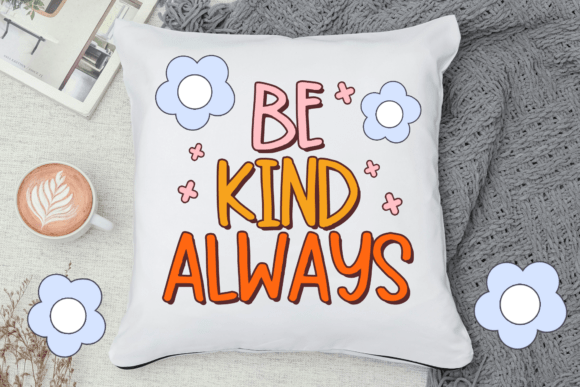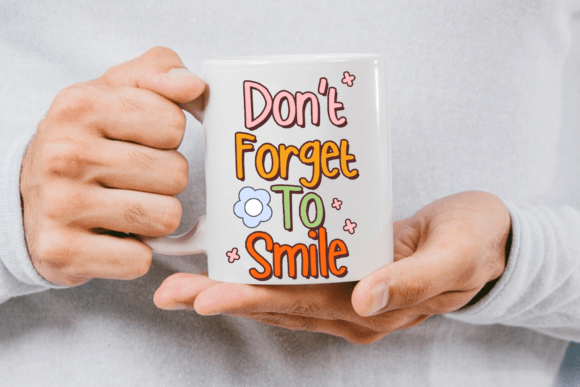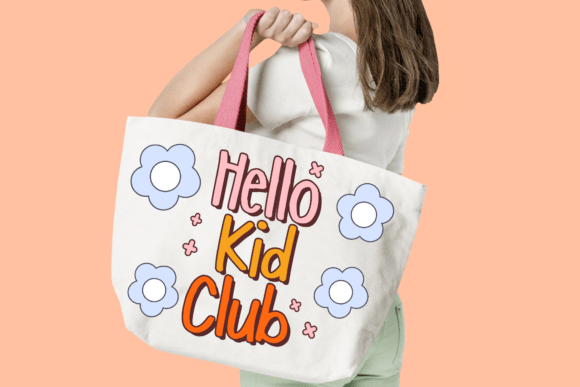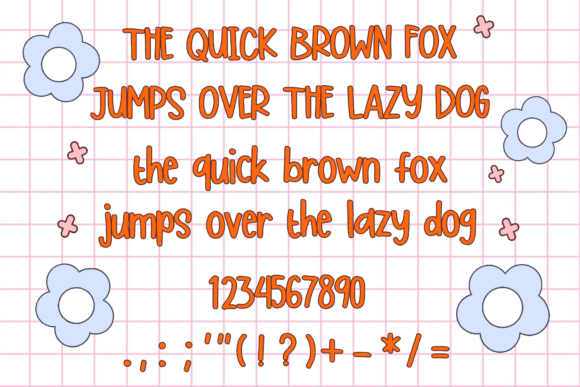
Hello Comic Font: Elevate Your Designs with a Playful and Versatile Typeface
Are you looking for a font that can add a super cool touch to your designs? Look no further than Hello Comic Font! This playful and versatile typeface is perfect for a wide range of design projects, from stickers and t-shirt designs to logo creations, magazine covers, and more. In this article, we’ll dive into the features and benefits of Hello Comic Font and explore how it can elevate your designs to the highest level.
What is Hello Comic Font?
Hello Comic Font is a fun and playful typeface designed to bring a touch of comic book flair to your designs. Its bold and expressive letters are perfect for creating eye-catching graphics, logos, and text-based designs. The font is highly versatile, making it suitable for a wide range of applications, from digital designs to print materials.
Key Features of Hello Comic Font
- Playful and Fun: Hello Comic Font is designed to add a playful and fun touch to your designs. Its bold and expressive letters are perfect for creating eye-catching graphics and logos.
- Versatile: This font is highly versatile and can be used for a wide range of design projects, from stickers and t-shirt designs to logo creations and magazine covers.
- High-Quality: The font is designed to high-quality standards, ensuring that your designs look professional and polished.
Design Ideas with Hello Comic Font
Hello Comic Font is perfect for a wide range of design projects. Here are some ideas to get you started:
- Stickers: Create fun and eye-catching stickers for kids or adults using Hello Comic Font.
- T-Shirt Designs: Design amazing t-shirt graphics using this font, perfect for casual wear or promotional items.
- Logo Designs: Create unique and memorable logos for businesses or organizations using Hello Comic Font.
- Magazine or Book Covers: Use this font to create eye-catching covers for magazines, books, or comics.
- Comics and Cartoon Drawings: Add a professional touch to your comics and cartoon drawings with Hello Comic Font.
- Daily Typing: Use this font for everyday typing, adding a playful touch to your digital communications.
Benefits of Using Hello Comic Font
There are many benefits to using Hello Comic Font in your designs. Here are a few:
- Unique and Eye-Catching: This font is designed to grab attention and add a unique touch to your designs.
- Time-Saving: With Hello Comic Font, you can create professional-looking designs in no time, saving you time and effort.
- Customizable: Hello Comic Font can be customized to fit your design needs, allowing you to create unique and personalized designs.